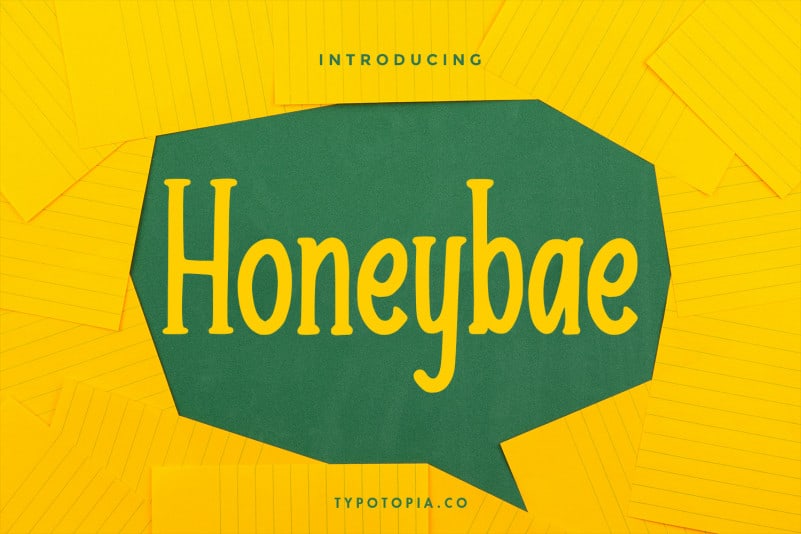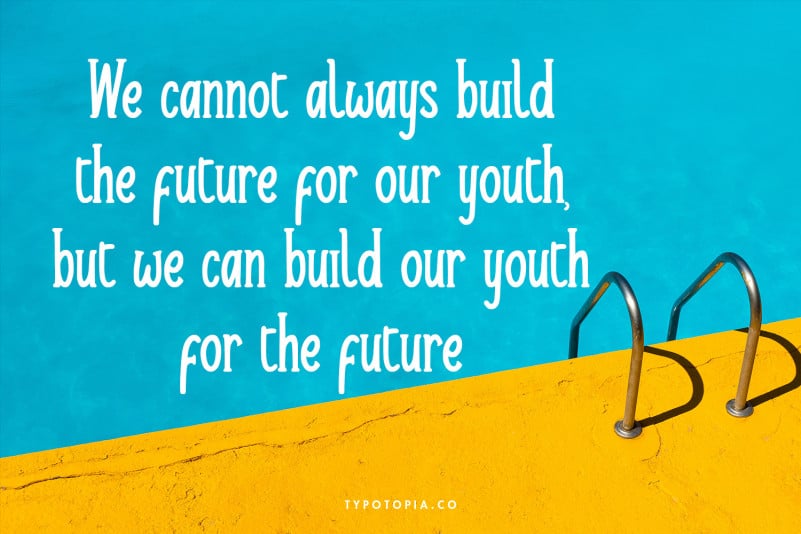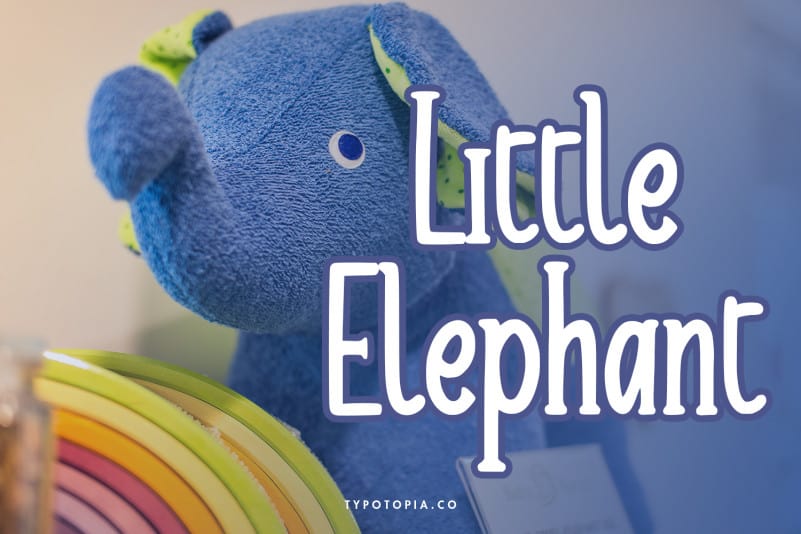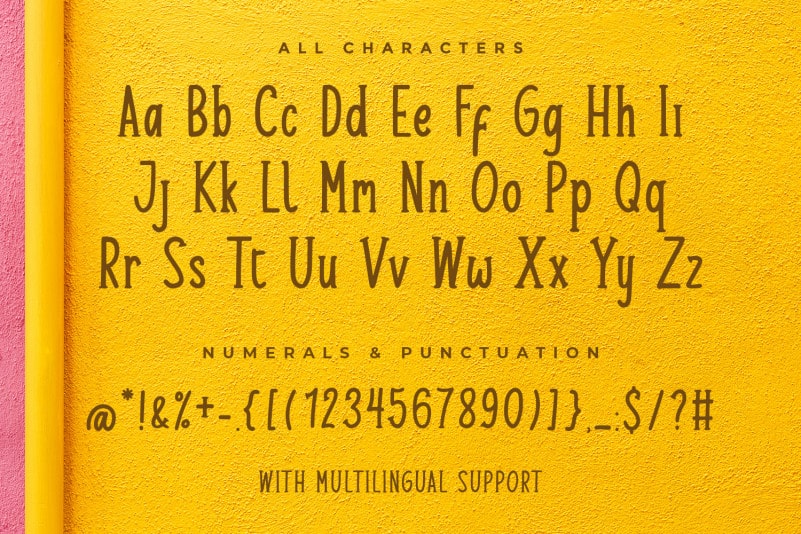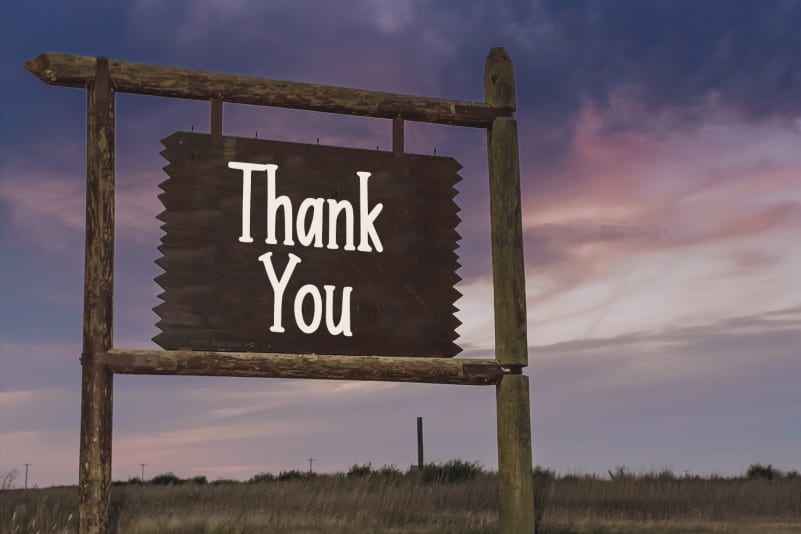
Honeybae – Fun Display Font
Introducing, Honeybae – Fun Display Font an incredibly Unique and Interesting Display Font
Honeybae – Fun Display Font is an incredibly Unique and Interesting Display Font that is absolutely great for your next creative project such as logos, printed quotes, invitations, cards, product packaging, headers, Logotype, Letterhead, Poster, Apparel Design, Label, and etc.
This Versatile Font includes also support a Multilingual Characters. Making this Font a Swiss Army knife in your Font Library. It’s extremely fun to use as each word can be transformed to your liking.